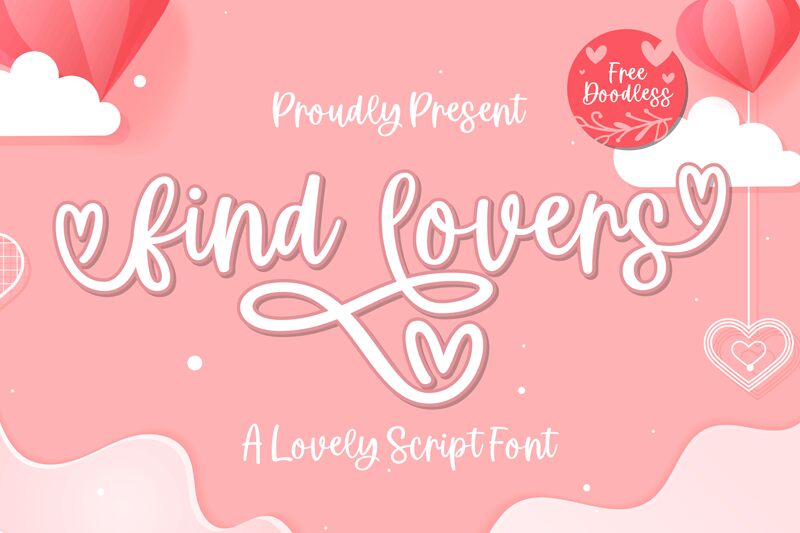
Find Lovers, a delightful script font by Ahwe Project, exudes an air of romance and elegance. Its semi-light weight adds a touch of delicacy to any project, making it perfect for wedding invitations, love letters, and heartfelt greeting cards. This lovely typeface brings a sense of warmth and intimacy to branding materials for boutiques, beauty salons, and cafés. Whether designing romantic novels or feminine fashion magazines, Find Lovers is the ideal choice for projects that require a softer touch. Let this enchanting font captivate your audience and infuse your creations with love and tenderness.